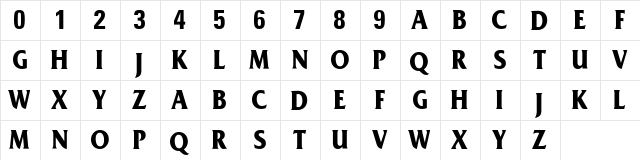
NHL Phoenix Regular Font Preview
NHL Phoenix Regular
NHL Phoenix Regular Font Details
Design Context for NHL Phoenix Typeface
NHL Phoenix offers clean, dependable letterforms without strong stylistic allegiance, making it a practical choice for designers who need flexibility.